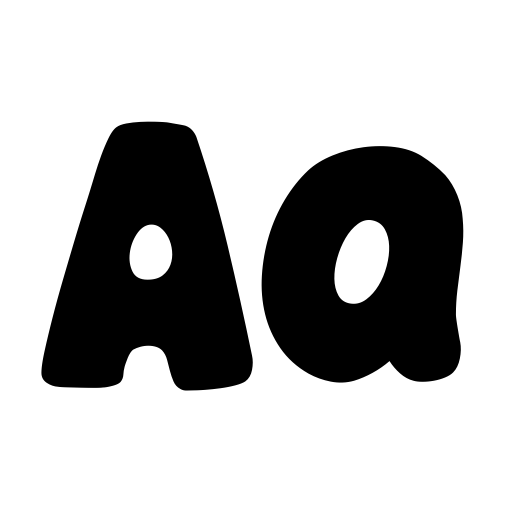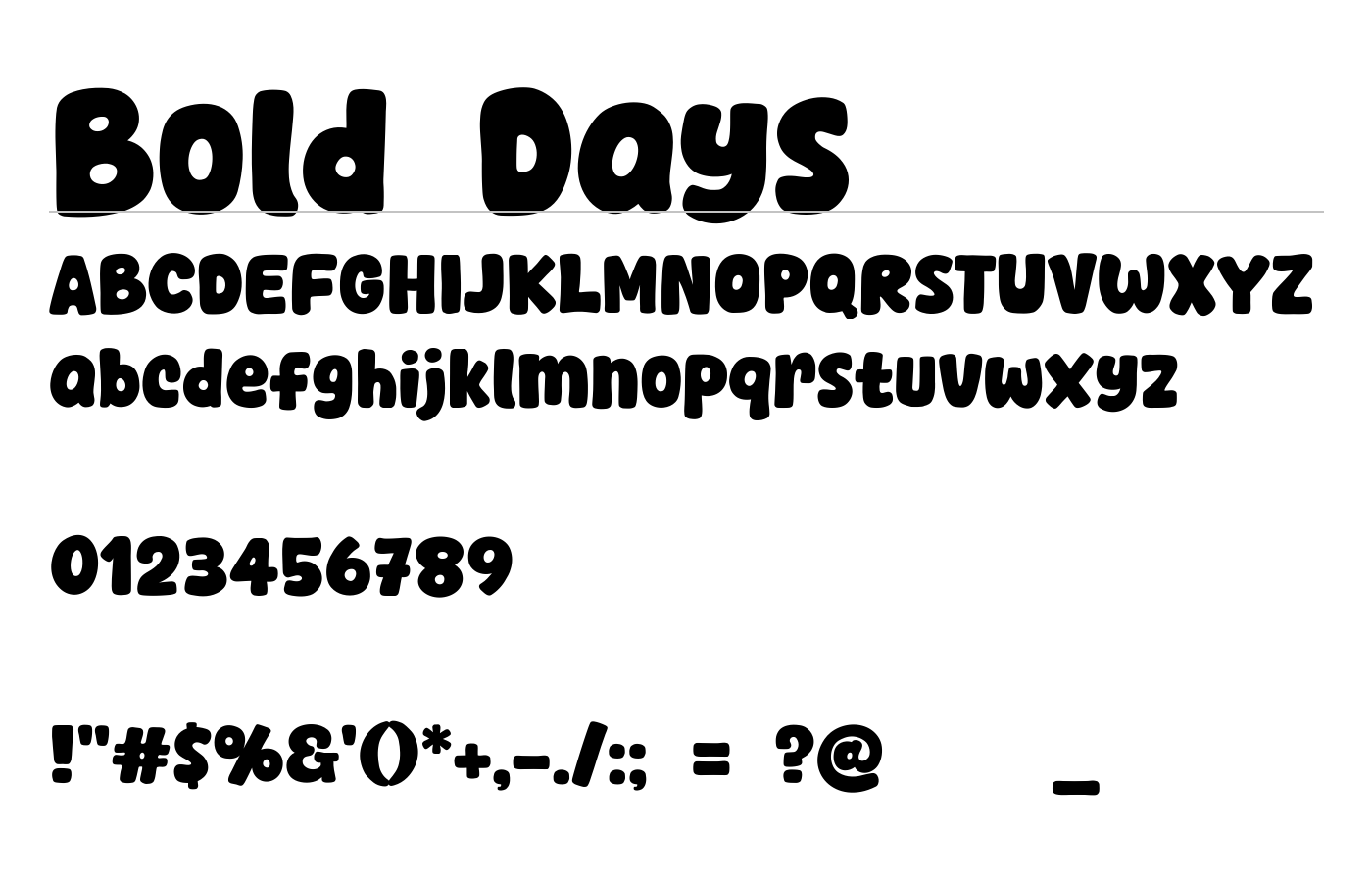
Bold Days is a playful and chunky sans serif font characterized by its rounded, irregular shapes that give it a friendly and approachable vibe. With thick strokes, generous spacing, and whimsical letterforms, it is perfect for casual, fun designs such as children’s books, playful branding, or eye-catching headlines that need a lively, informal touch. This font brings a cheerful personality that stands out in logos, posters, and any creative project aiming for a warm and inviting feel.
Bold Days Font
About Bold Days Font
| Font family | Bold Days Font |
| Designer | Suzuran |